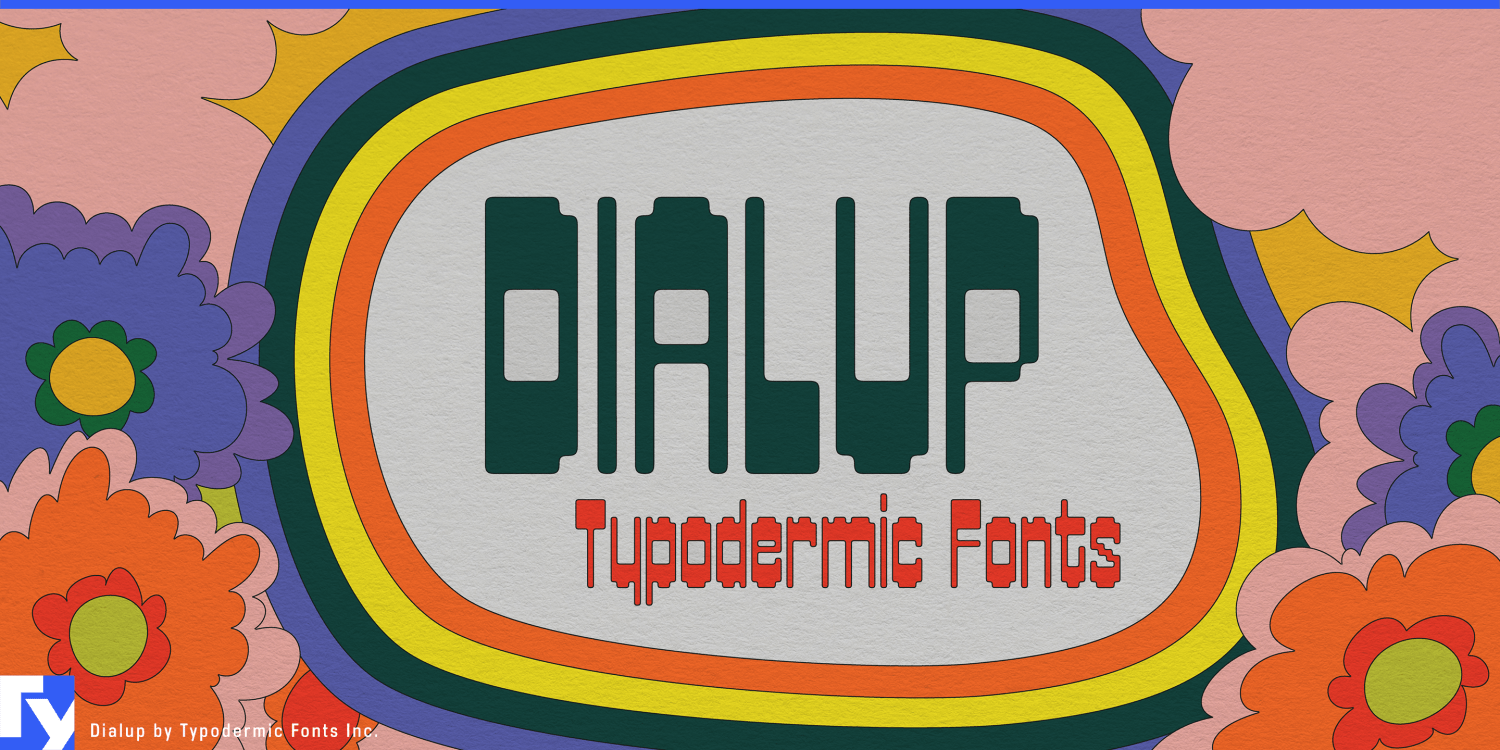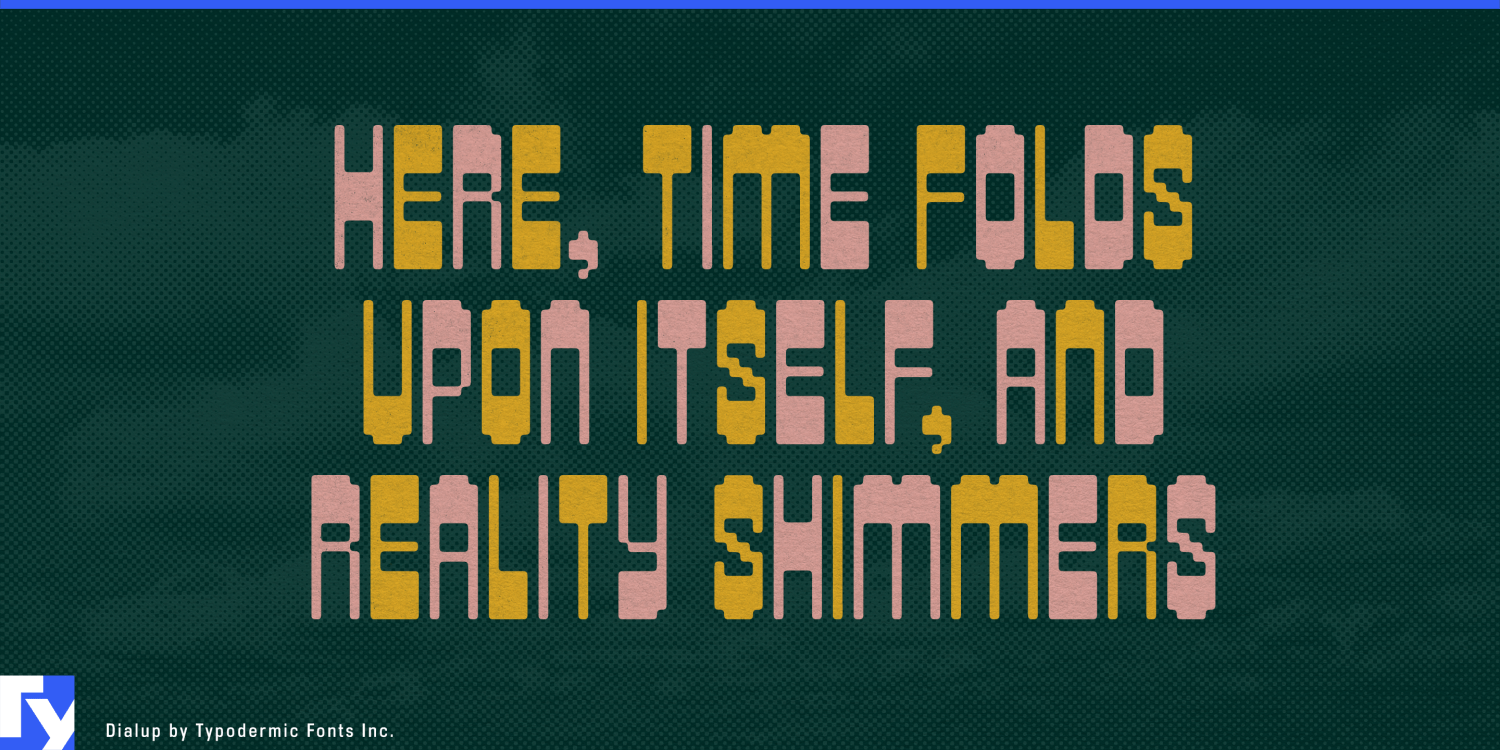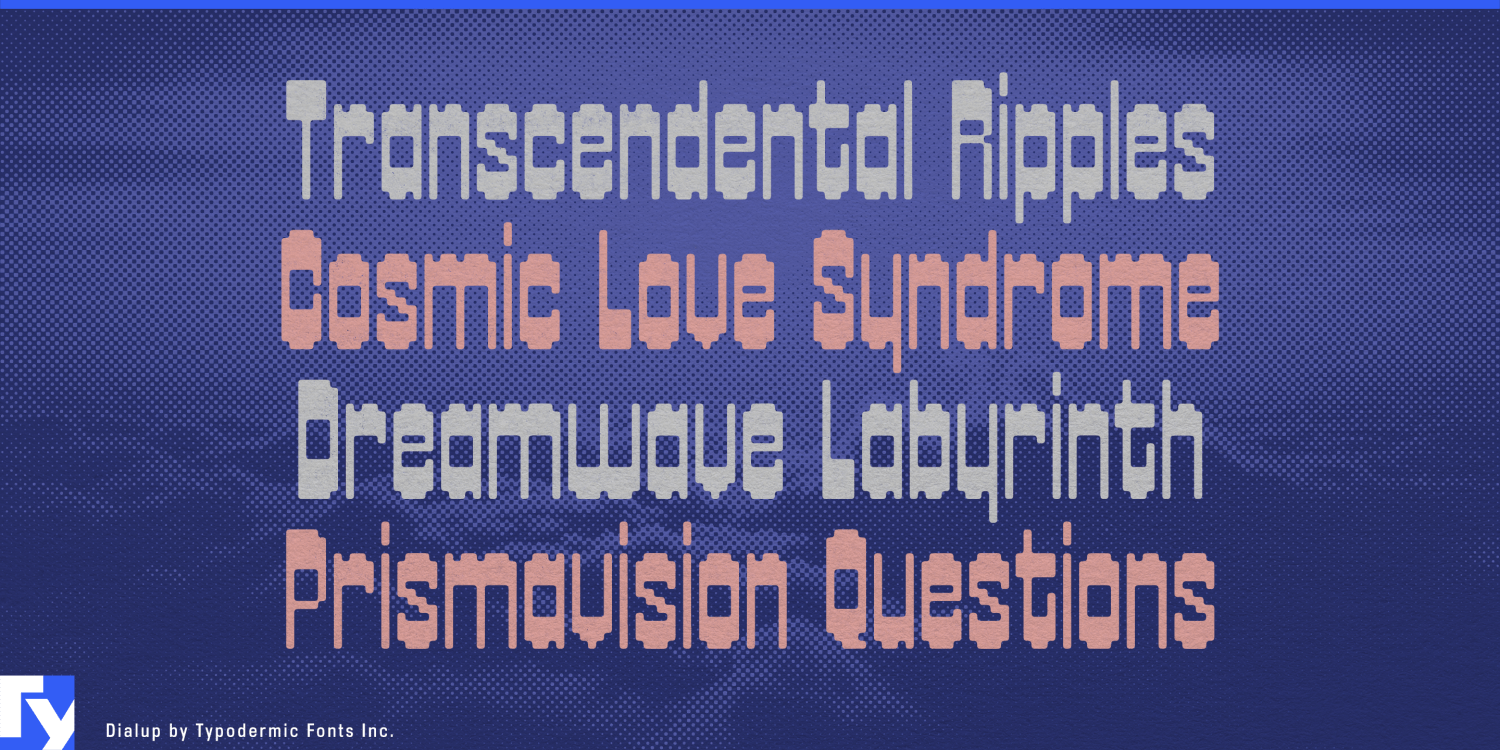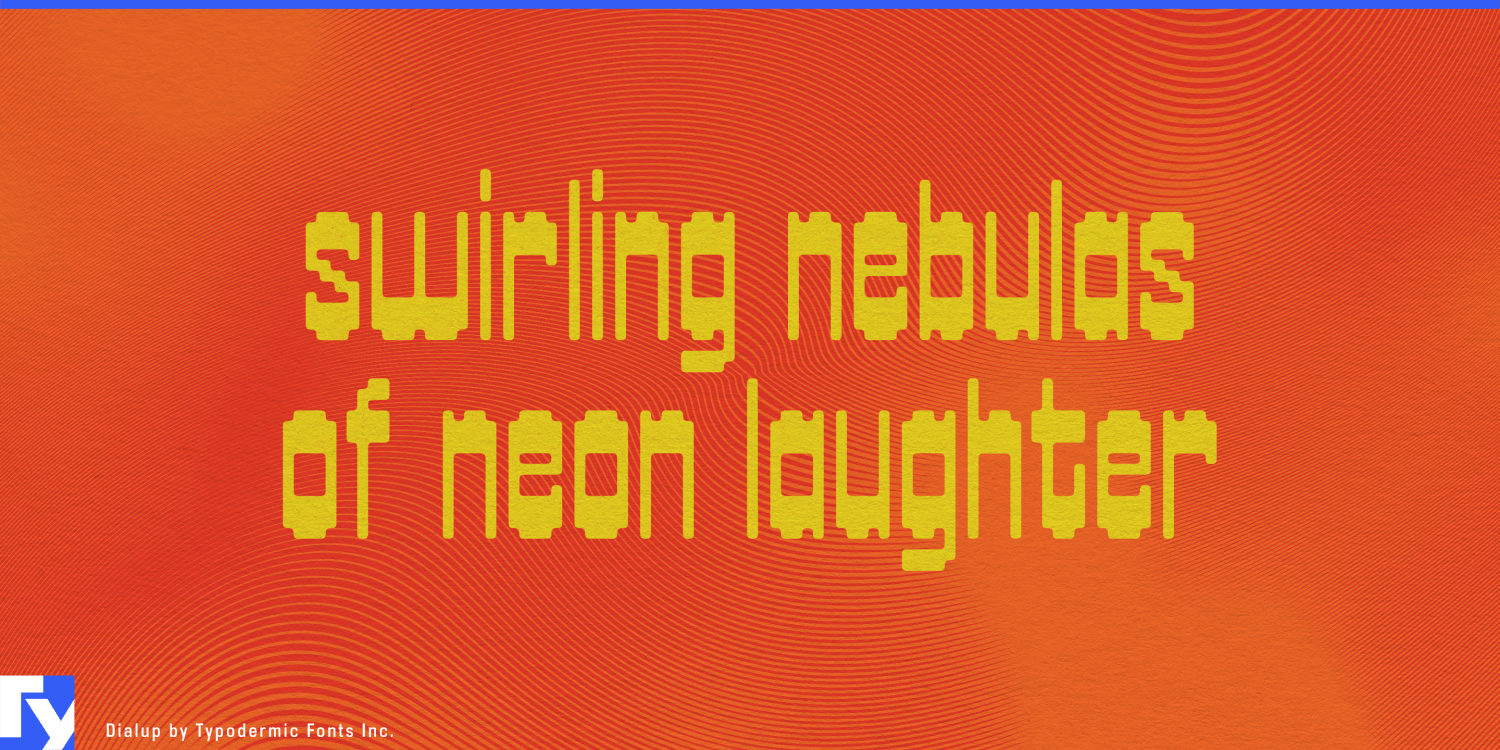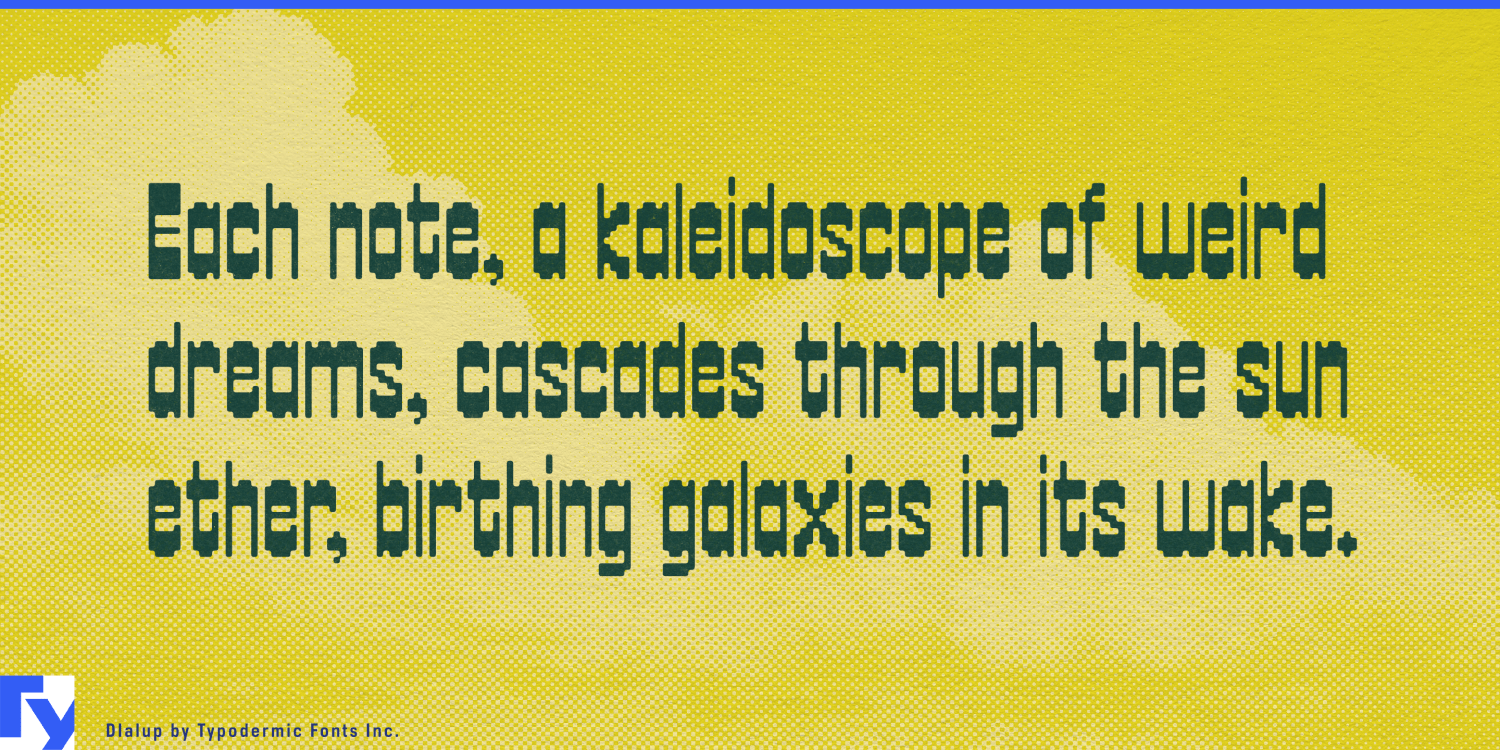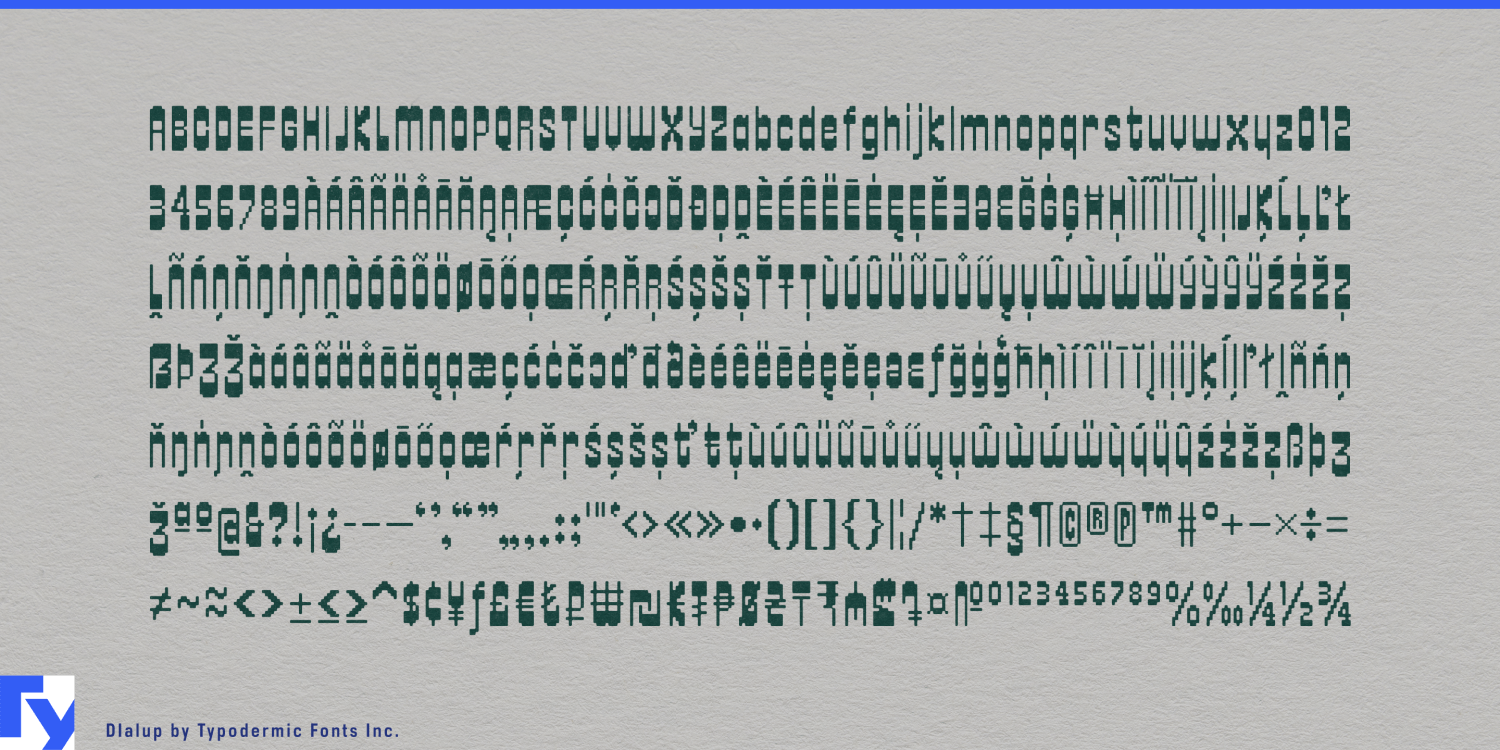
Dialup
Buy NowDigital lettering often becomes sharper as it becomes more technological. Dialup goes the other way. Its softened pseudo-pixel construction combines swollen horizontal strokes with pinched vertical connections, giving the letters an unusual mixture of electronic structure and confectionery mass. The grid is still visible, but it seems to have started melting.
That makes signal-processing equipment a natural fit. Fuzz pedals, phasers, delays, filters and other effects devices can use Dialup for pedal names, series identities and box graphics; the digital skeleton supplies the electronics while the rounded distortion reflects the transformation of the signal itself. Audio plug-ins and video synthesizers can use the same idea for product names and major display graphics, leaving detailed controls to a quieter companion face.
The same construction has a surprisingly convincing life around food. Bakery-cafés, pastry counters and candy shops can use Dialup for storefront names, takeaway cups, bakery boxes and large menu headings. Gummies, chewy sweets, filled chocolates and brightly packaged confections share its rounded, compressed sense of volume, while the pseudo-grid keeps the result from becoming ordinary bubble lettering.
Colorful coffee shops built around pastries, sweet drinks and seasonal specials offer another natural setting. Dialup works best when something orderly is being made softer, sweeter or stranger: a clean signal turned into fuzz, a pixel grid turned into swollen lettering, or a café identity pushed toward candy-shop exuberance.